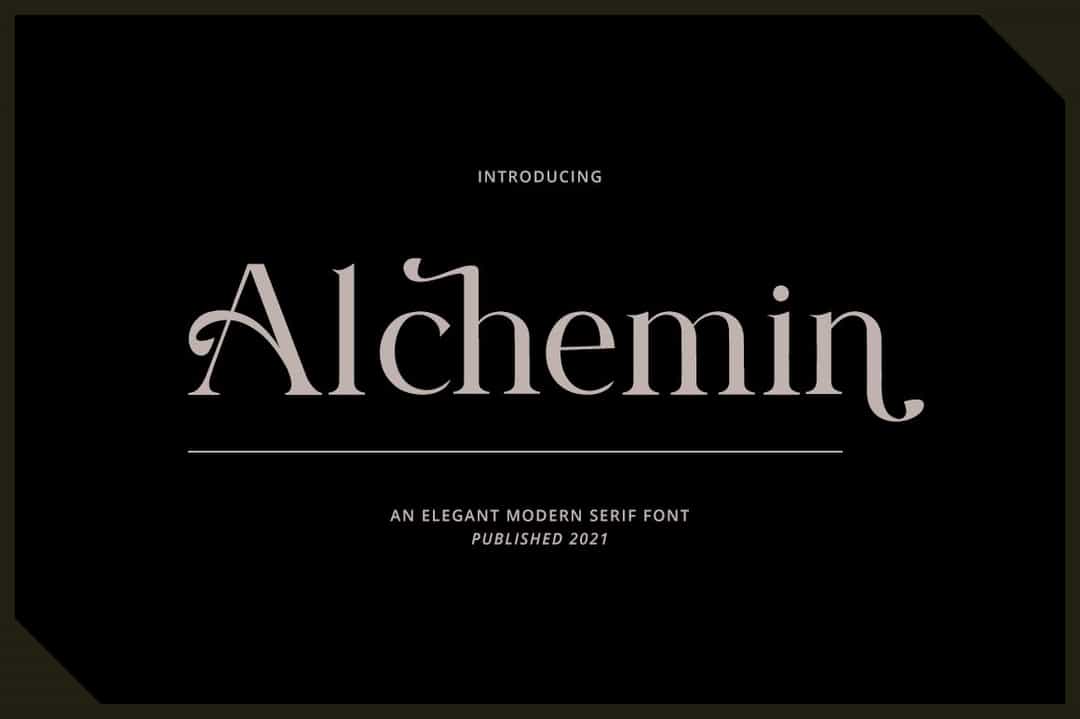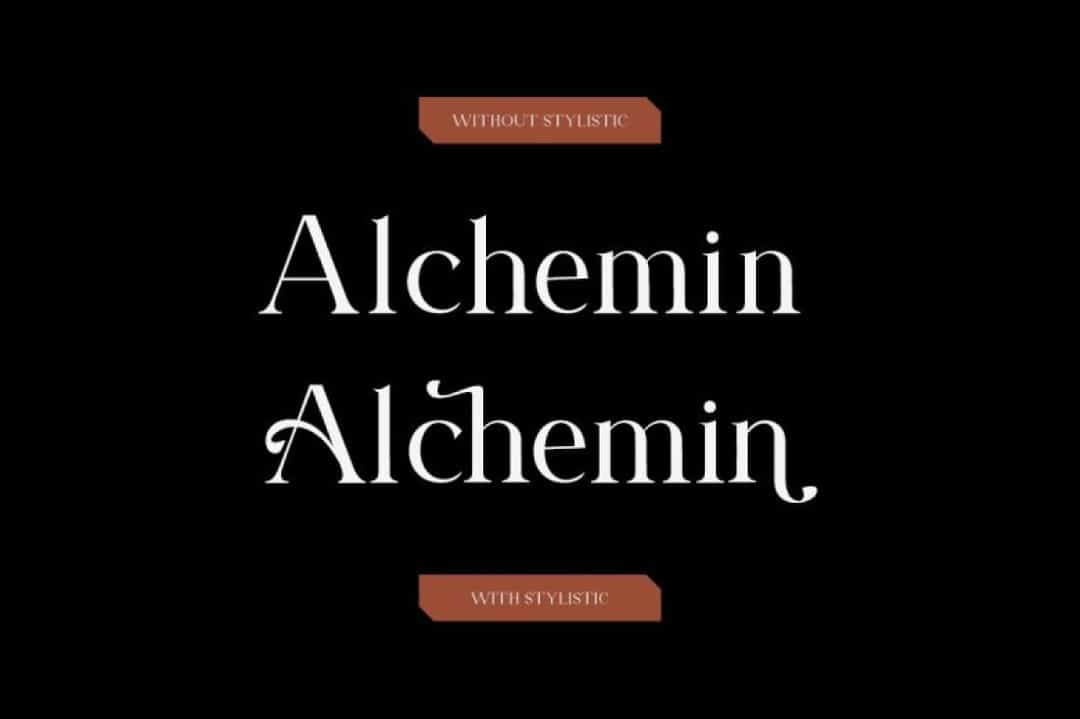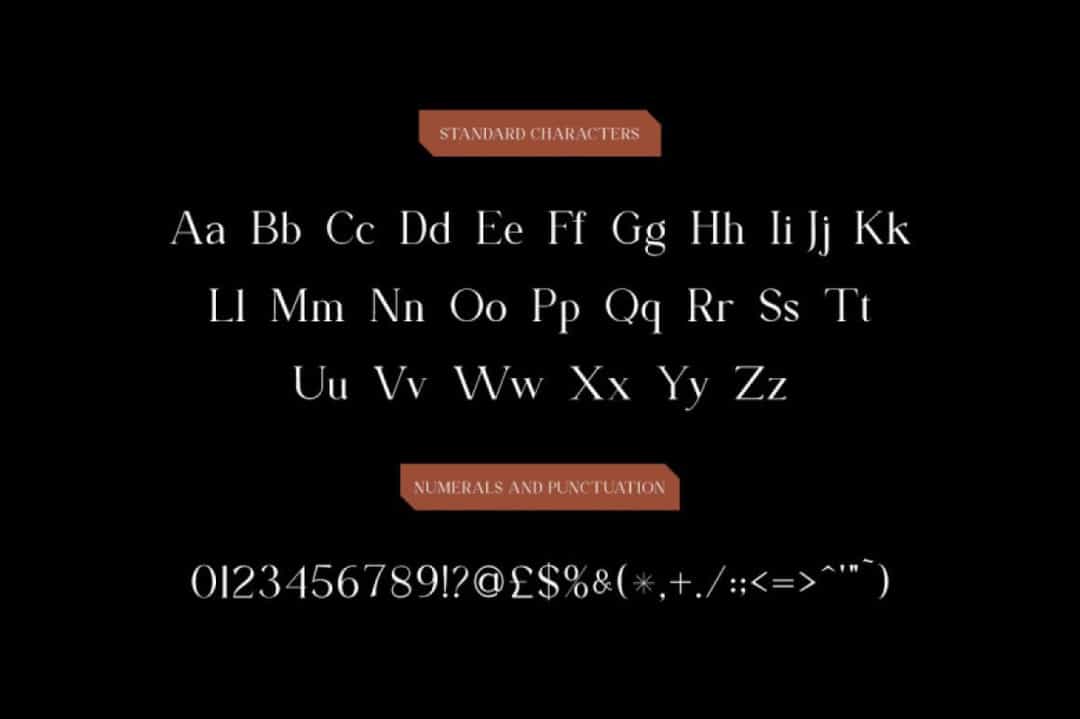
Alchemin can be described as an elegant serif font. No matter the subject matter or theme of any typeface it will make an excellent addition to your font library, as Alchemin will enhance any typeface.